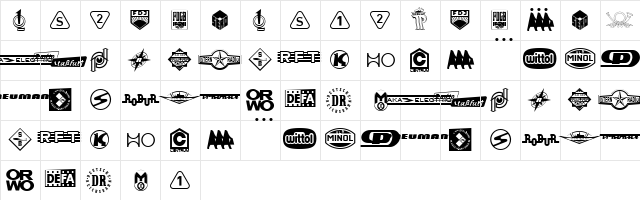
Pr䳥nt 60 Regular
| Foundry | Peter Wiegel |
| Designer | Peter Wiegel |
Design Context for Pr䳥nt 60 Typeface
Pr䳥nt 60 is a composed and adaptable typeface that performs quietly and consistently across a wide range of design contexts.